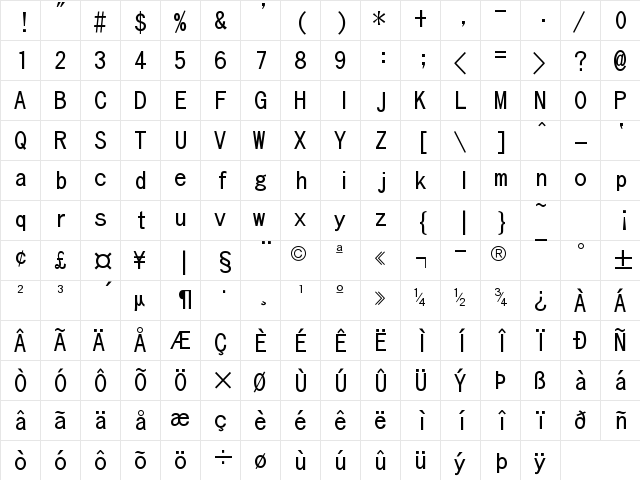
Sazanami Gothic Gothic-Regular
Gothic-Regular · Electronic Font Open Laboratory (/efont/) Kanji autodesign by CLWFK (Non-kanji glyphs by Yasuyuki Furukawa) ·
Design Context for Sazanami Gothic Typeface
Sazanami Gothic has the quiet confidence of well-executed sans-serif typography: versatile, unobtrusive, and dependable at any size.
Font Pairing: Works well alongside a characterful serif or display font that can carry the expressive load while Sazanami Gothic handles the functional copy.
Pro Tip: Pair Sazanami Gothic with a display or serif font for headlines — its neutral character makes it an excellent supporting player in complex typographic systems.